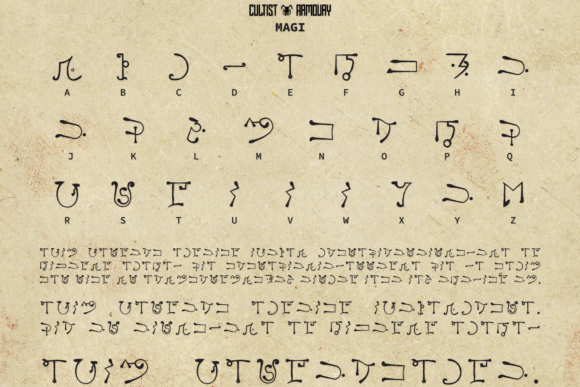
There's no denying that Magi Font is mysterious. But is its mystery charming or dreadful? It's up to you to decide. Conjure up designs and texts that evoke ancient spells with every stroke of this hand-drawn font. Picture this: it's a dark night, the wind is howling, and you're home alone. Suddenly, you hear a strange noise coming from the attic. You slowly creep up the stairs, your heart pounding in your chest. As you reach the top of the stairs, you see a faint light coming from under the door. You cautiously open the door and peer inside. The room is dark and dusty, and there's a strange smell in the air. In the center of the room, you see a Ouija board. You've never played with a Ouija board before, but you've always been curious about them. You decide to give it a try. You sit down at the table and place your hands on the planchette. You close your eyes and concentrate. Suddenly, the planchette starts to move. It spells out a single word: "Magi".
You open your eyes and look around the room. There's nobody else there. You're all alone. But you can't shake the feeling that something is watching you. You quickly leave the attic and go back to your bedroom. You lock the door and crawl into bed. But you can't sleep. You keep thinking about the Ouija board and the word "Magi". What does it mean?
The next day, you go to the library to do some research. You find out that Magi is a fictional font based on The Alphabet of the Magi invented by Theophrastus Bombastus von Hohenheim (also known as Paracelsus) in the 16th century. Magi was used it to engrave the names of angels on talismans which he claimed could treat illnesses and provide protection.
You're fascinated by what you've learned. You decide to download Magi Font and start using it in your own designs. You love the way it looks and feels. It's perfect for creating designs that are both mysterious and captivating.
If you're looking for a font that will add a touch of mystery to your designs, then Magi Font is the perfect choice. It's a beautiful font that's sure to make your designs stand out from the crowd.